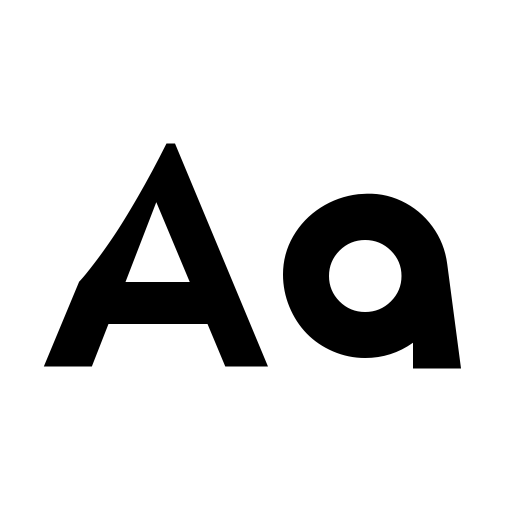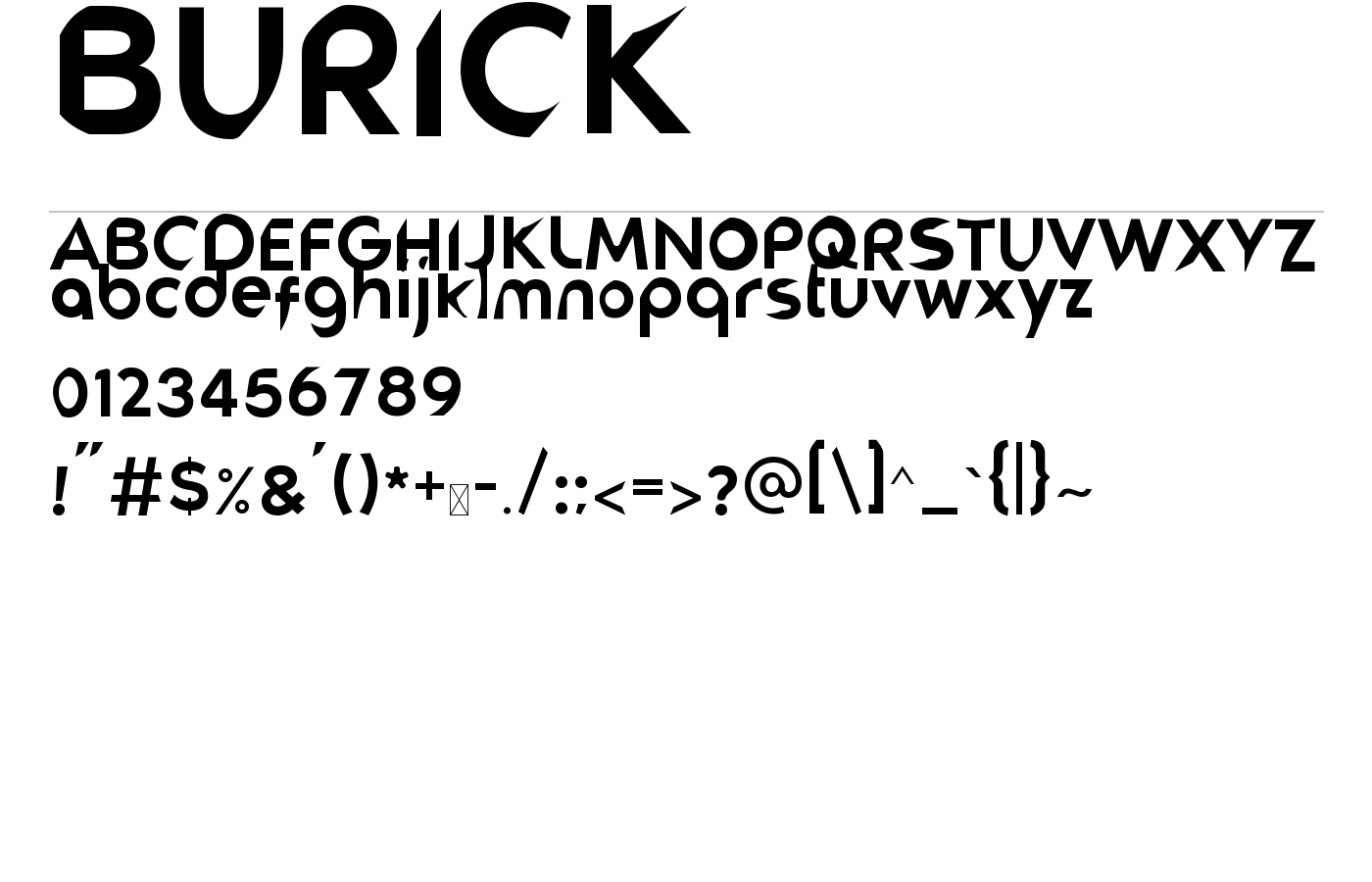
BURICK is a bold, geometric sans serif font with a strong modern feel, featuring clean, sharp lines and a distinctive angular style that adds character and edge. Its uniform stroke weight and tight spacing make it ideal for impactful headlines, logos, and branding that need to convey confidence and contemporary sophistication. This font works particularly well in fashion, tech, and creative industries where a sleek, futuristic look is desired.
BURICK Font
About BURICK Font